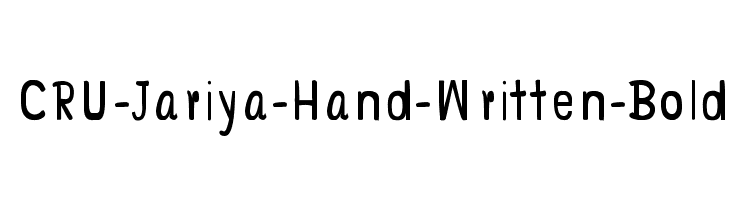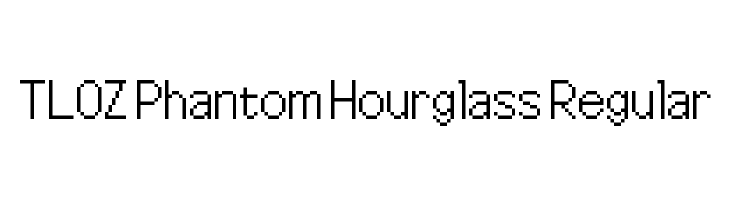
A pixelated, retro-style font inspired by classic video game graphics.
Bold, geometric sans-serif for Ethiopic script.
A bold, decorative font with a unique horizontal striped pattern.
A bold, italicized font with a modern and dynamic style.
A whimsical, hand-drawn font with a playful and friendly style.
A bold, italicized font with a dynamic and energetic style.
An ornate and decorative font with intricate, swirling patterns.
A bold, distressed font with a gritty, urban aesthetic.
A bold, italic script font with flowing, connected characters.